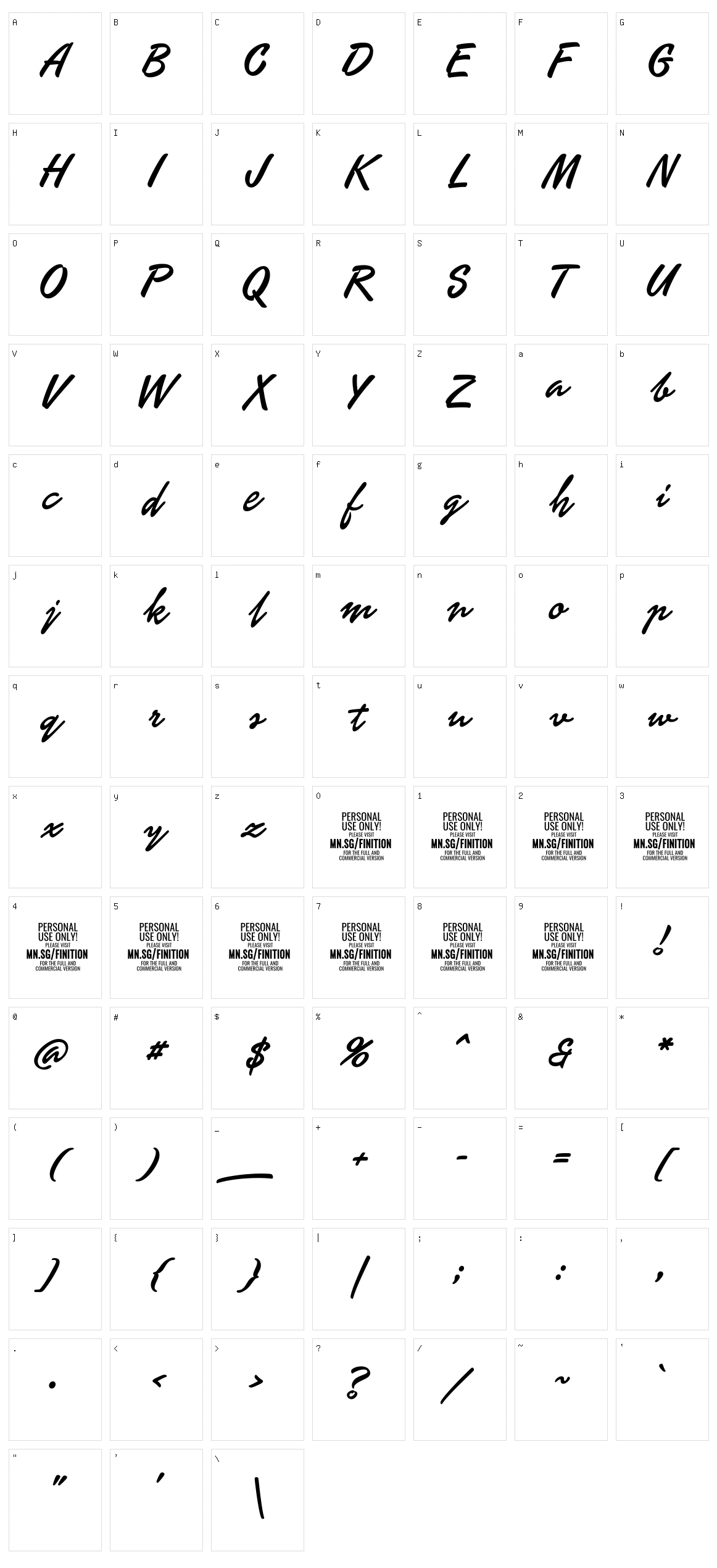
Finition is a calligraphic brush script.
Created by Måns Grebäck, this typeface is perfect to create a youthful logo.
With its hundreds of glyphs it supports a wide range of languages.
Use underscore to make an underline.
Example: Fin_ition
With ligatures activated, write multiple underscores for a longer line.
Example: Aut___omatic